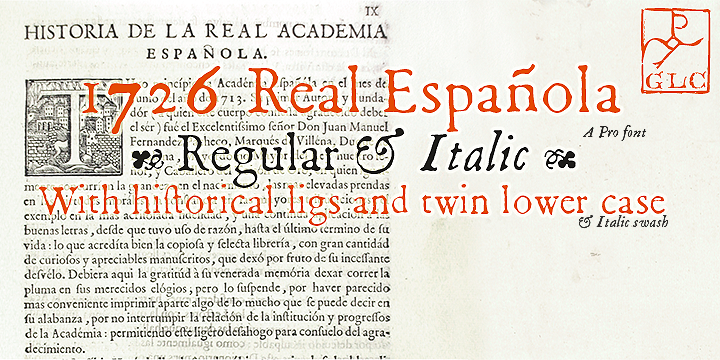
1726 Real Espanola
1726 Real Espanola is a historical font family. This typeface has two styles and was published by GLC Foundry.
This family was created inspired from the set of fontfaces used
by Francisco Del Hierro, to print in 1726 the first Spanish language Dictionnary from the Spanish Royal Academy (Real Academia Española, Dictionario de Autoridades) : These two Transitional styles are said to have been the first set of official typeface in Spain, like the French "Reale" (take a look to our "1790 Royale Printing".
This family was created inspired from the set of fontfaces used
by Francisco Del Hierro, to print in 1726 the first Spanish language Dictionnary from the Spanish Royal Academy (Real Academia Española, Dictionario de Autoridades) : These two Transitional styles are said to have been the first set of official typeface in Spain, like the French “Reale” (take a look to our “1790 Royale Printing”. In our two styles (Regular & Italic), fontfaces, kernings and spaces are as closely as possible the same as in the original.  This Pro font is covering Western, Eastern and Central European, Baltic and Turkish languages, with standard and “s long” ligatures, usual fractions and twin letters in each of the two styles and a few Italic swashes isnpired from the font used in 1746 by the same printer for an other edition from the Royal Academy.